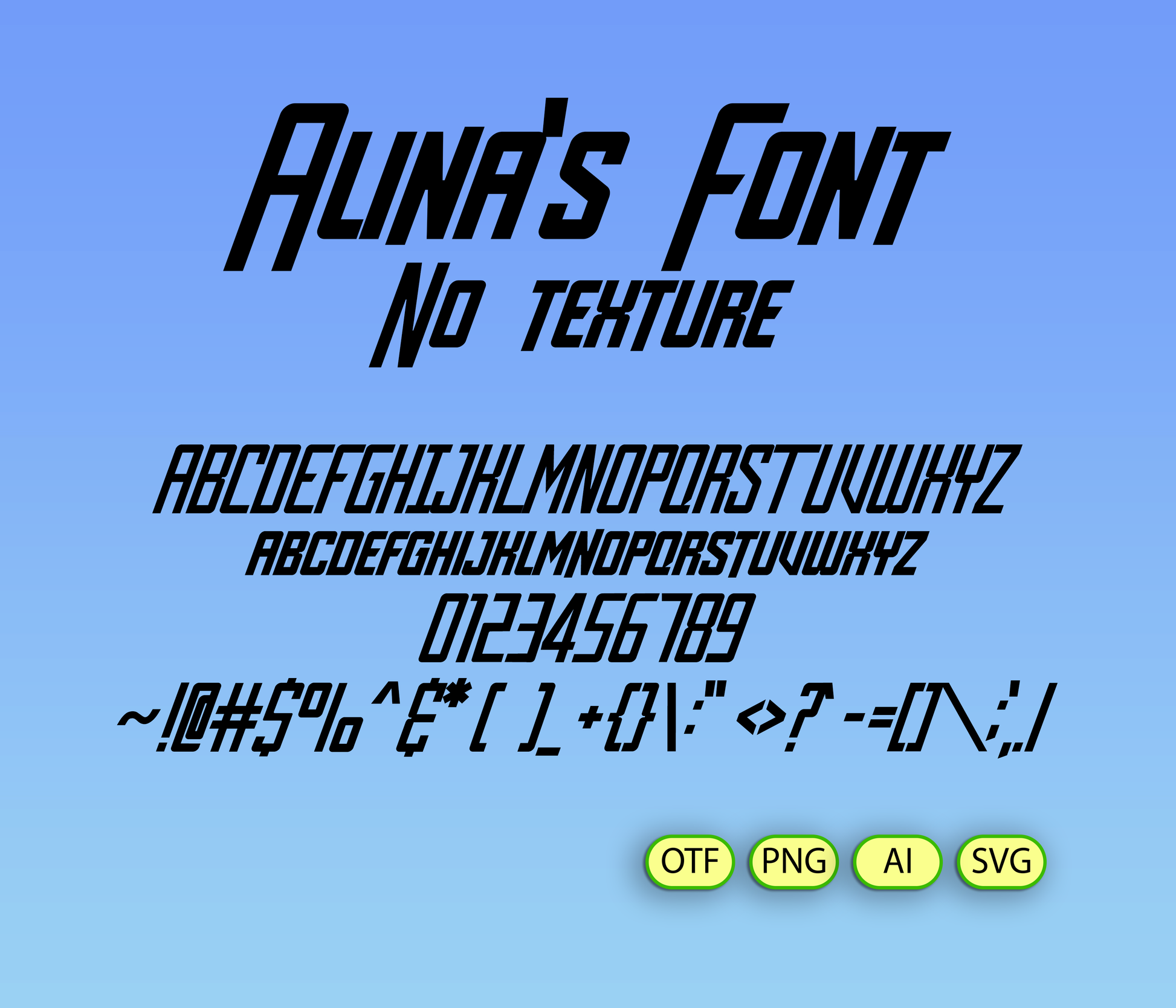
Lightning Force Font
Electrify Your Designs with the Lightning Force Font
Unleash the power and excitement of the Lightning Force with our specially designed font, inspired by the dynamic and bold spirit of a heroic team. Perfect for fans, event planners, and designers looking to inject a sense of energy and heroism into their projects, this font captures the thrilling and electrifying essence of the Lightning Force. Whether you're creating event invitations, designing themed merchandise, or crafting digital content, our Lightning Force font ensures your projects resonate with the intensity and vibrancy of these iconic characters.
Our Lightning Force-inspired font features sharp, angular lines and strong, impactful characters that reflect the powerful and heroic nature of the team. This versatile font is ideal for a variety of applications:
1. Event Promotions: Perfect for creating bold invites, posters, and banners for comic conventions, fan meet-ups, or superhero-themed parties.
2. Merchandise Design: Ideal for designing t-shirts, posters, and accessories that capture the essence of the Lightning Force.
3. Digital Media: Enhance websites, blogs, and social media content with striking headers and graphics.
4. Educational Materials: Use in presentations, worksheets, and educational content focused on comics, heroism, or storytelling.
5. Personal Projects: Add a dynamic touch to scrapbooking, DIY crafts, or home decor inspired by the adventures of the Lightning Force.
Our Lightning Force font not only pays homage to a team of heroes but also empowers you to infuse your designs with the energy and heroism that define the Lightning Force. Whether you’re crafting promotional materials, designing unique merchandise, or adding a touch of electrifying power to personal projects, this font allows you to communicate with the dynamic and bold spirit of these heroes. Ready to electrify your creative projects? This font is your key to unleashing a surge of creativity and impact.